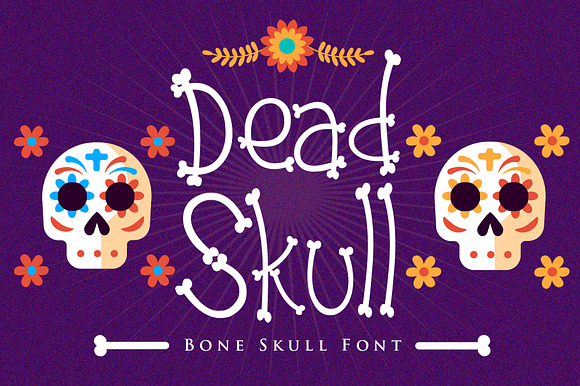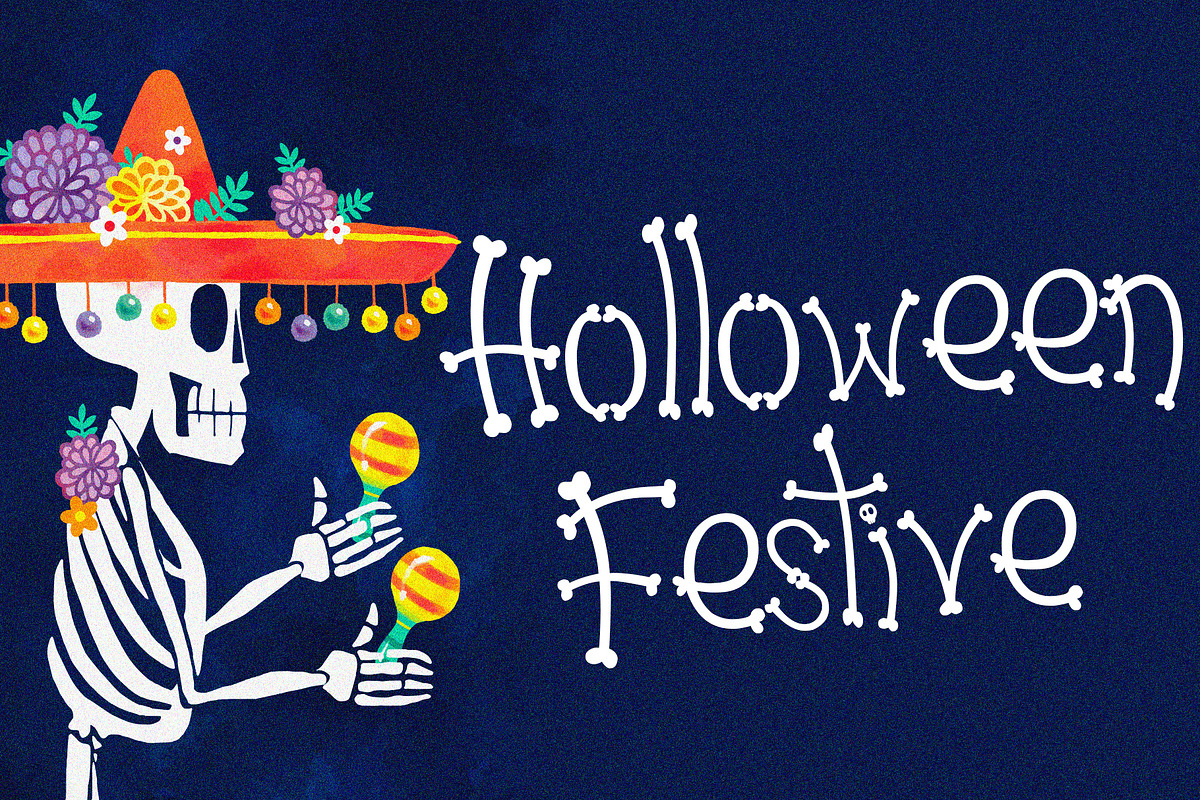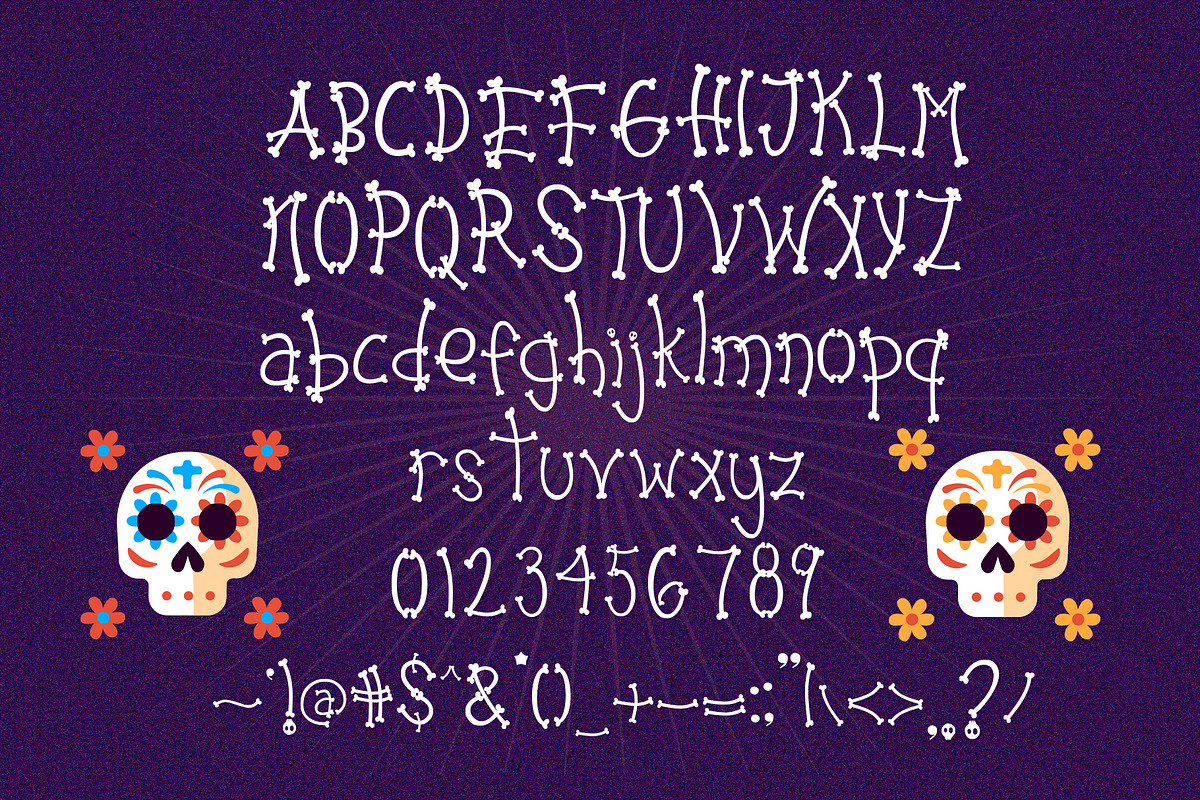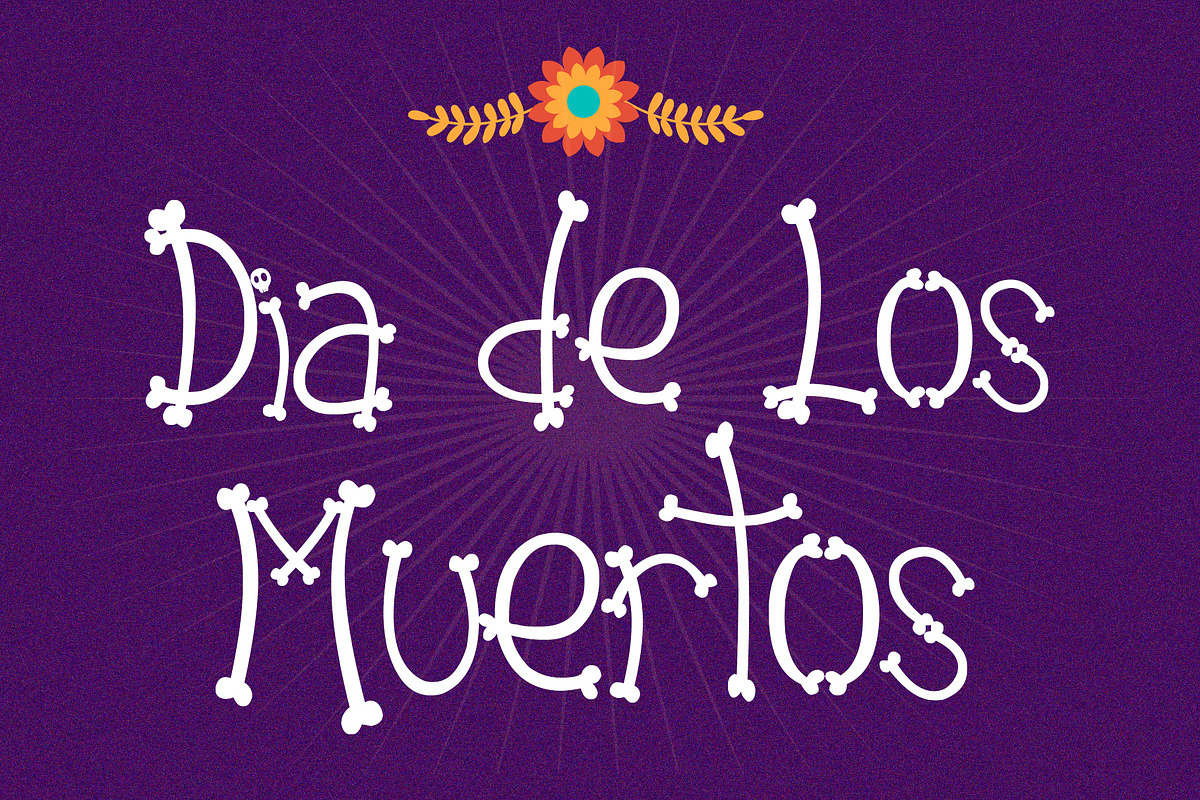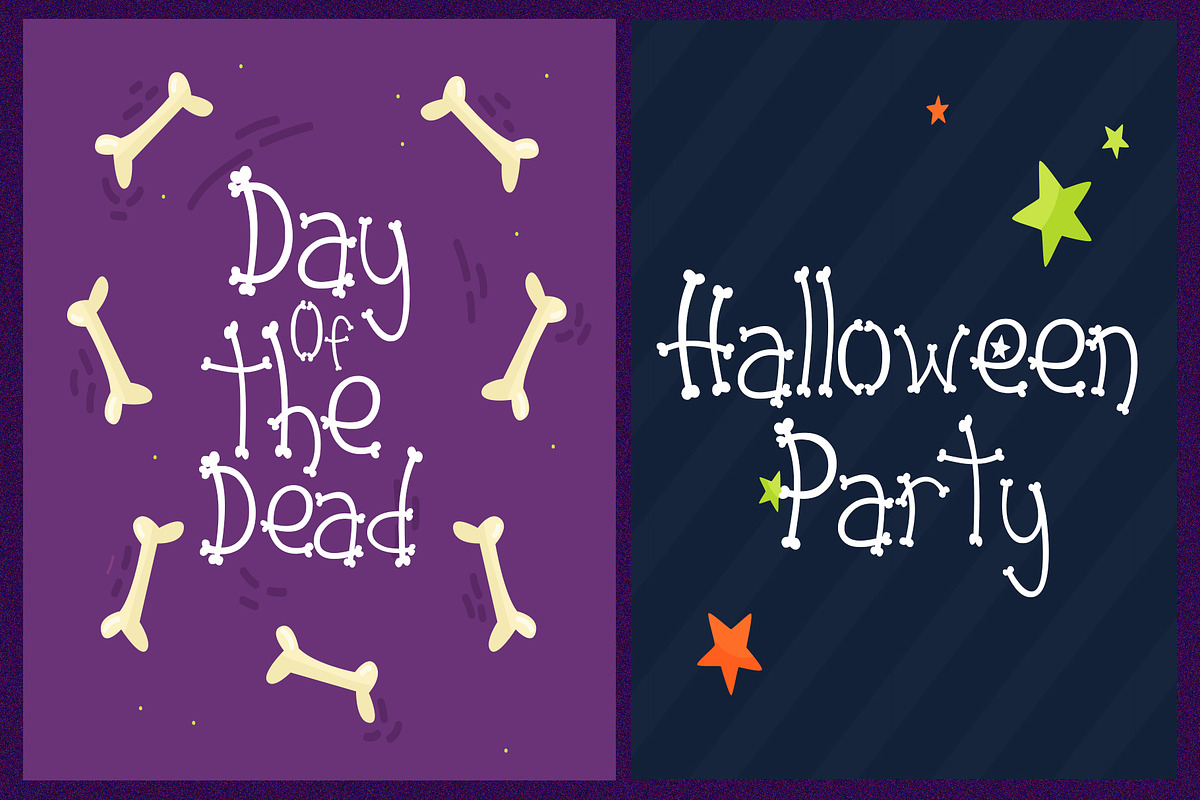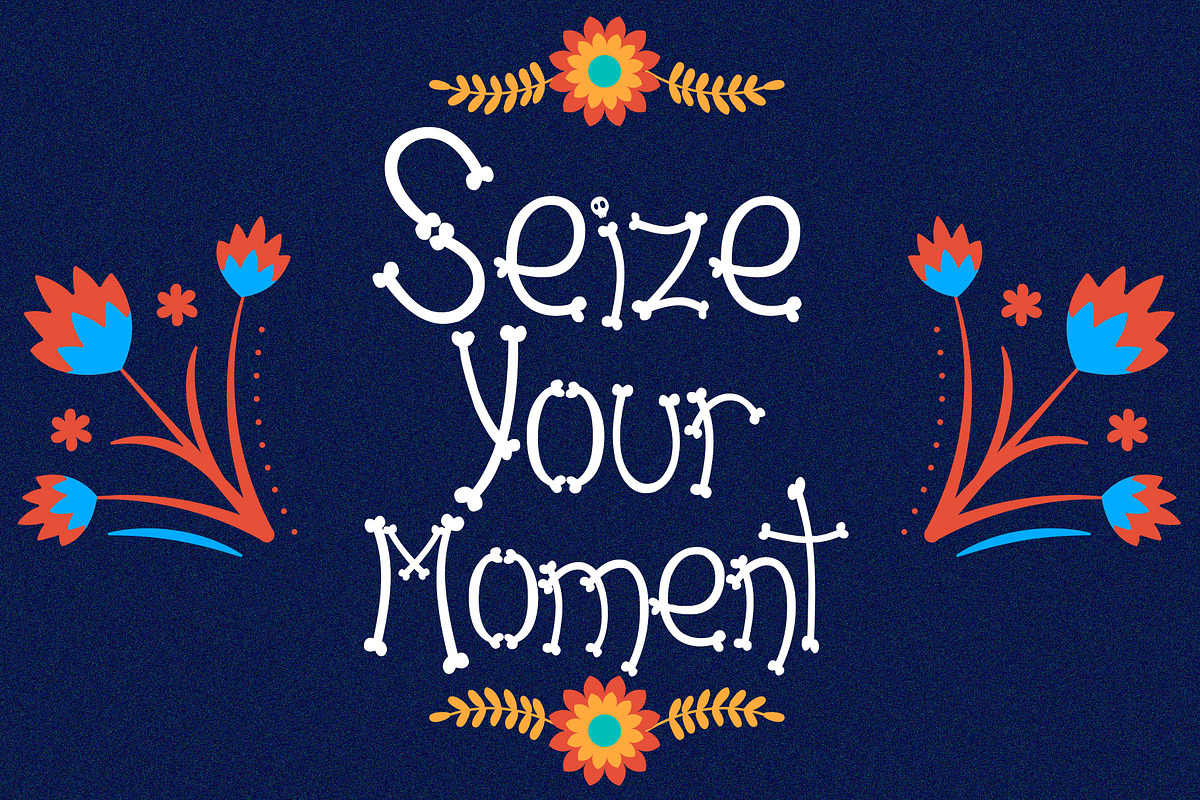
Dead Skull - Bone Skull Font
Dead Skull is a bone look a like font, made special for your Halloween Projects! Simply type and have fun with the glyphs to your design!
Dead Skull - Bone Skull Font by Dm Studio fits naturally into Branding, posters, packaging, typography.